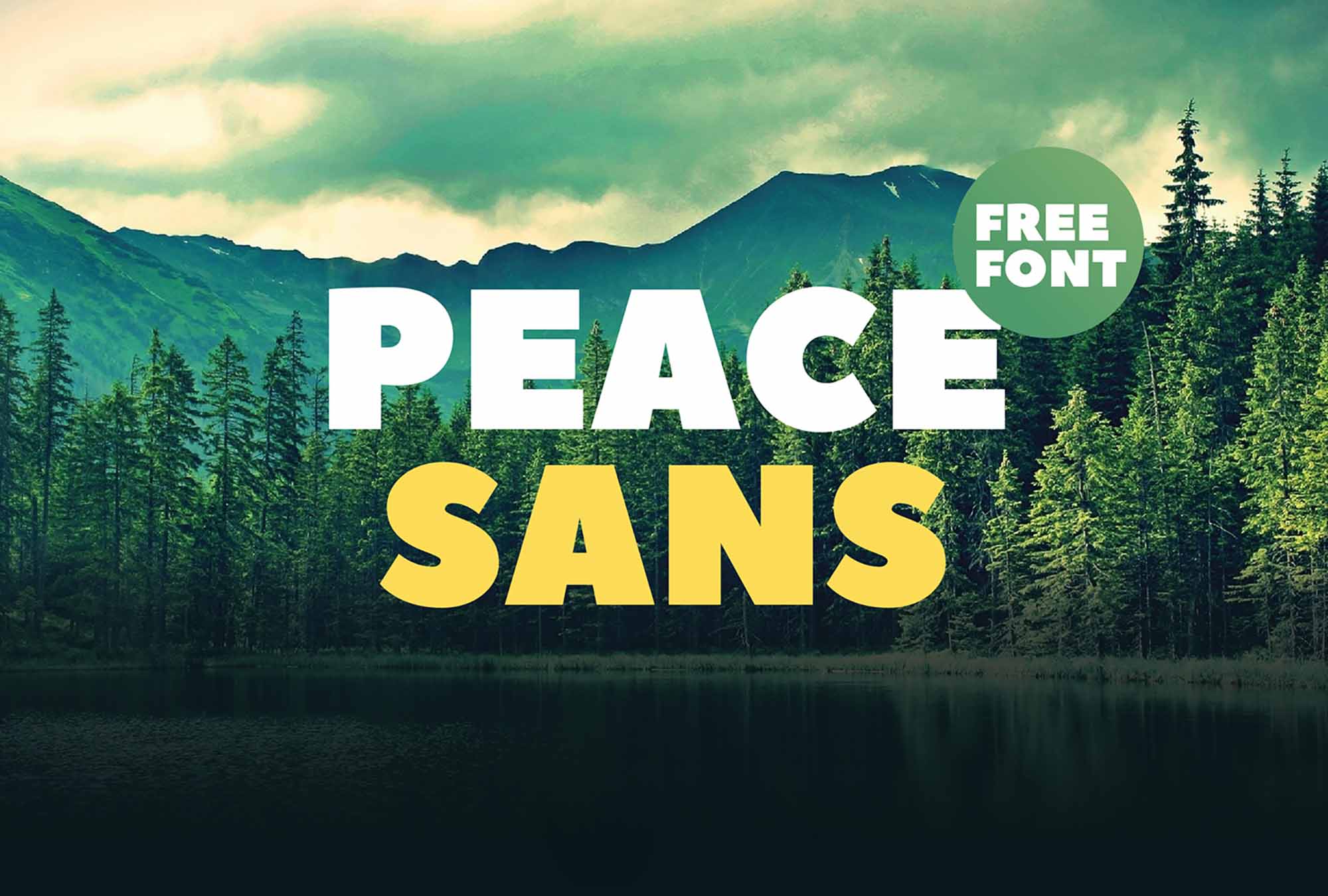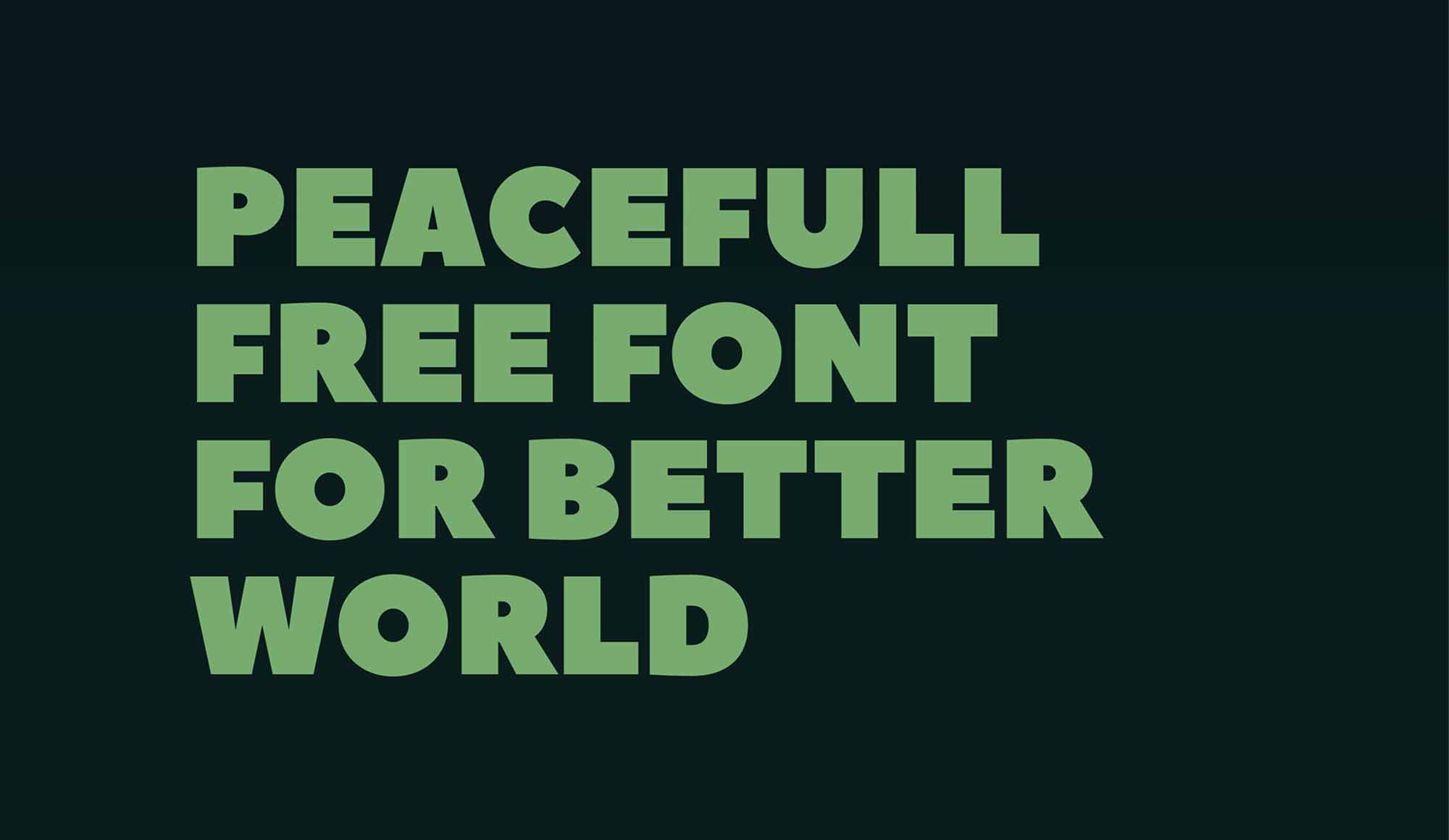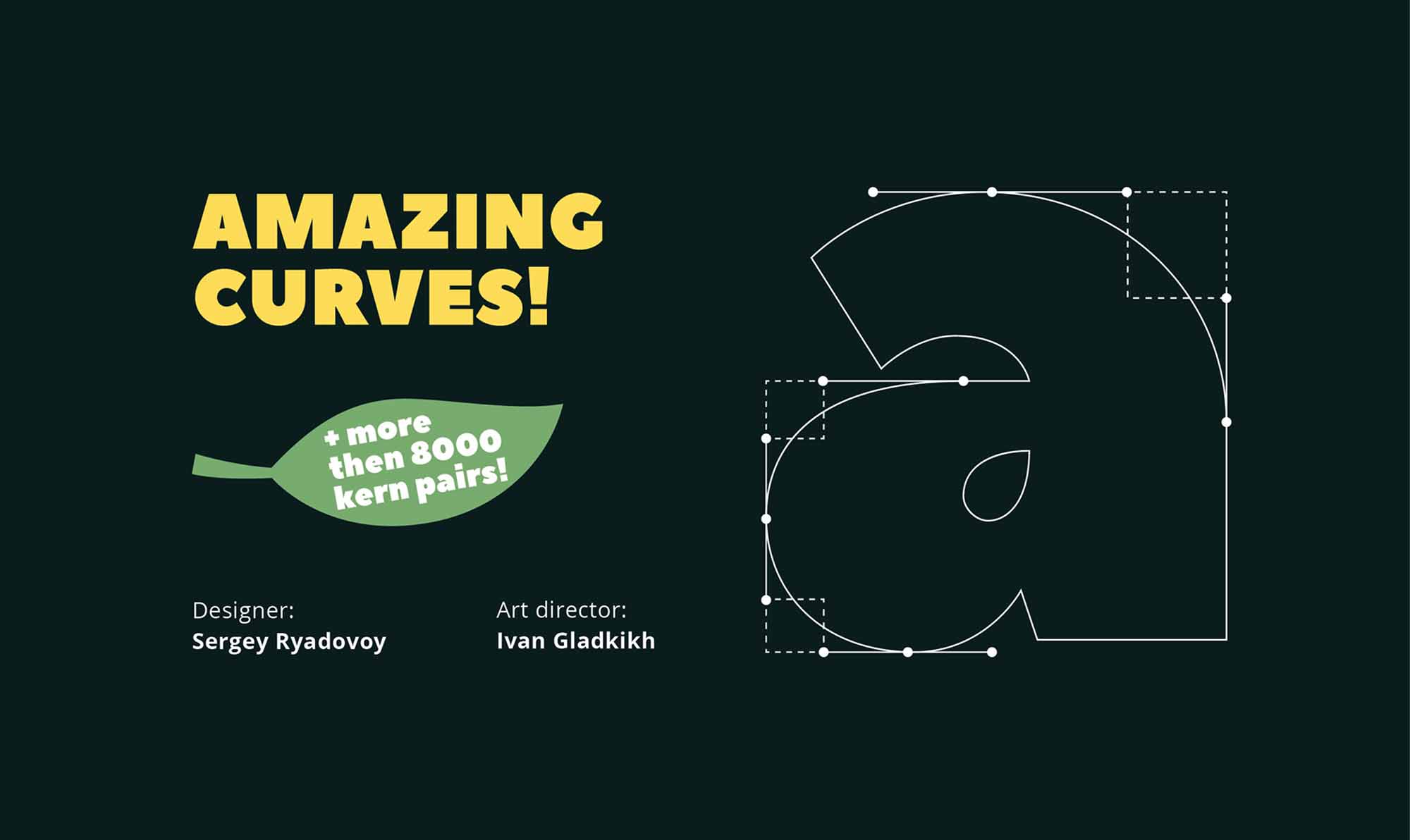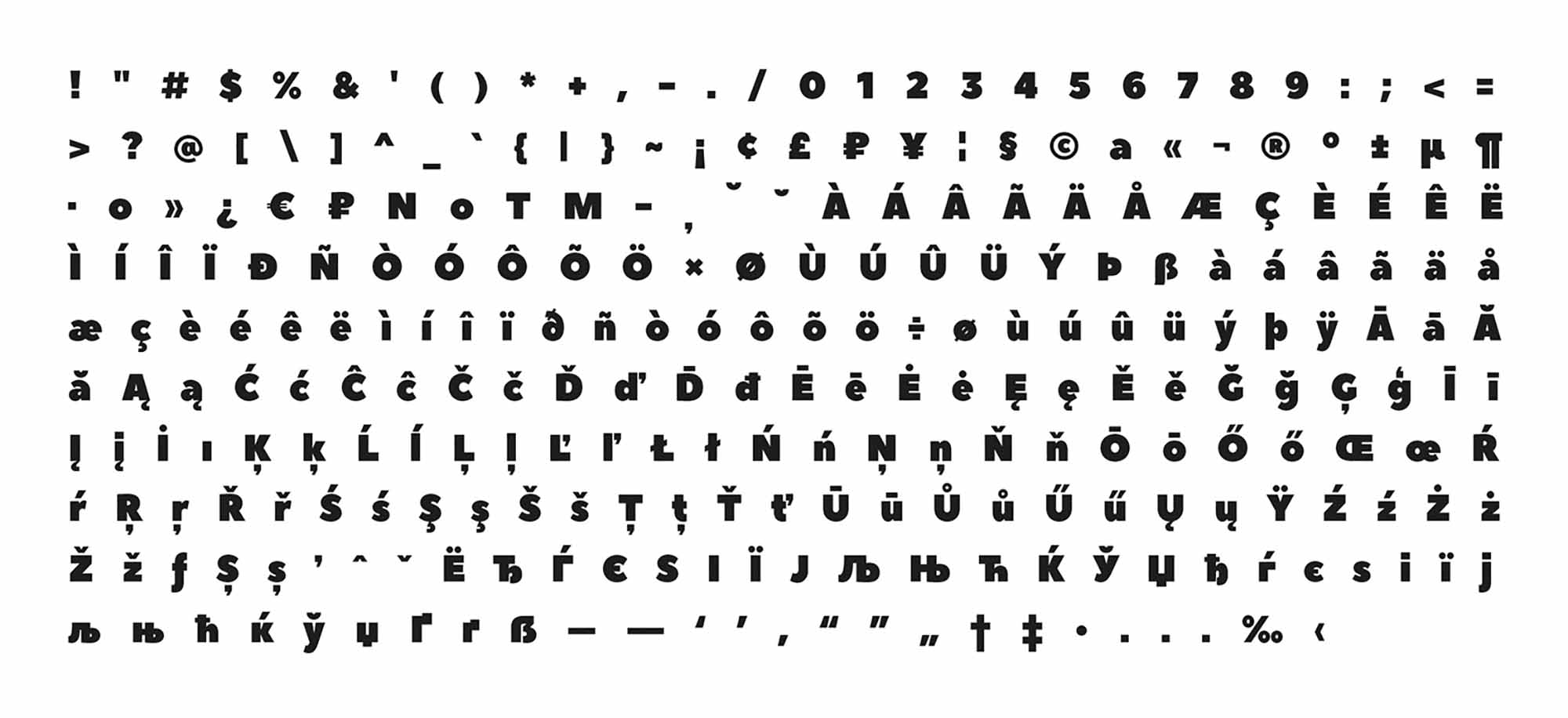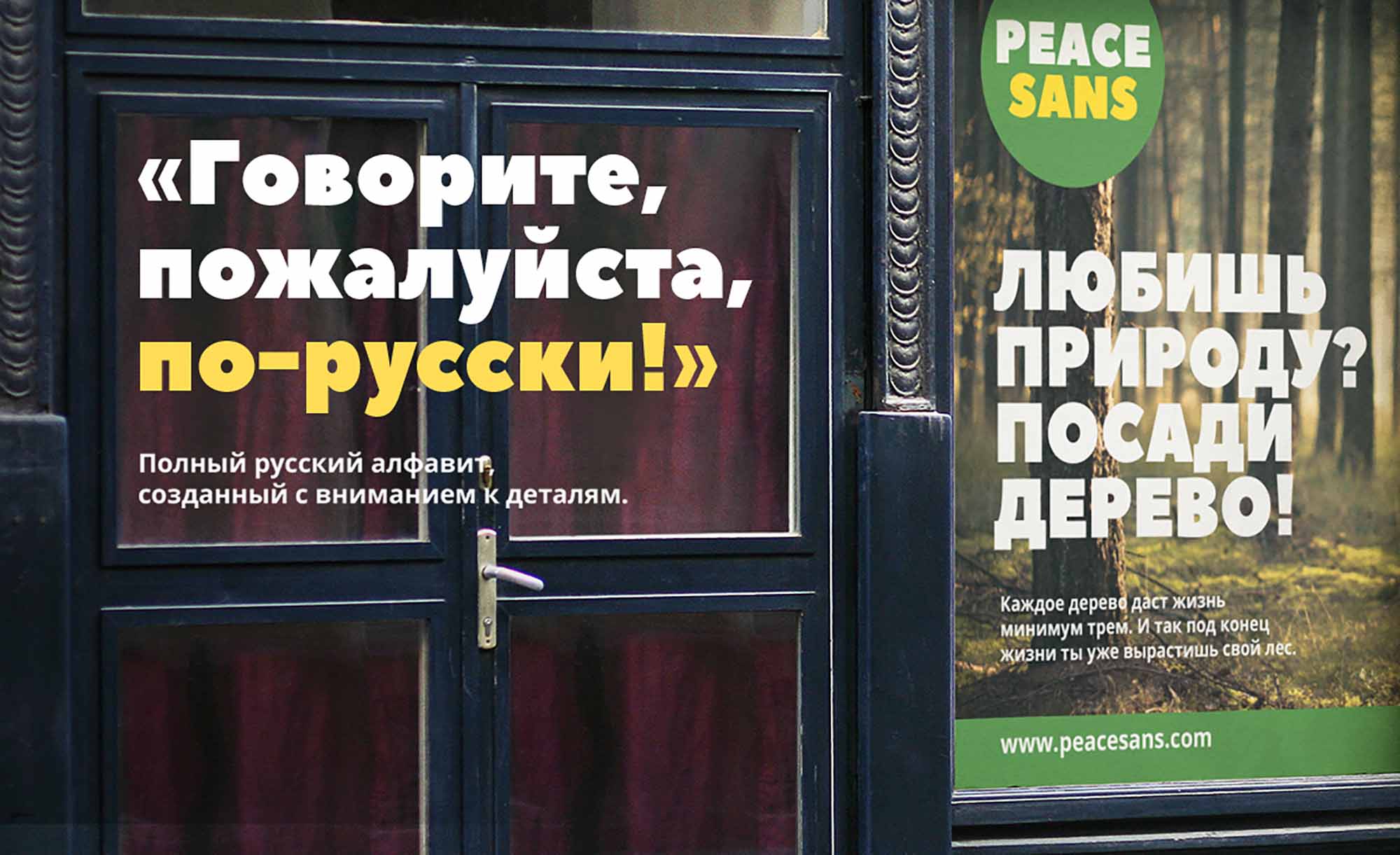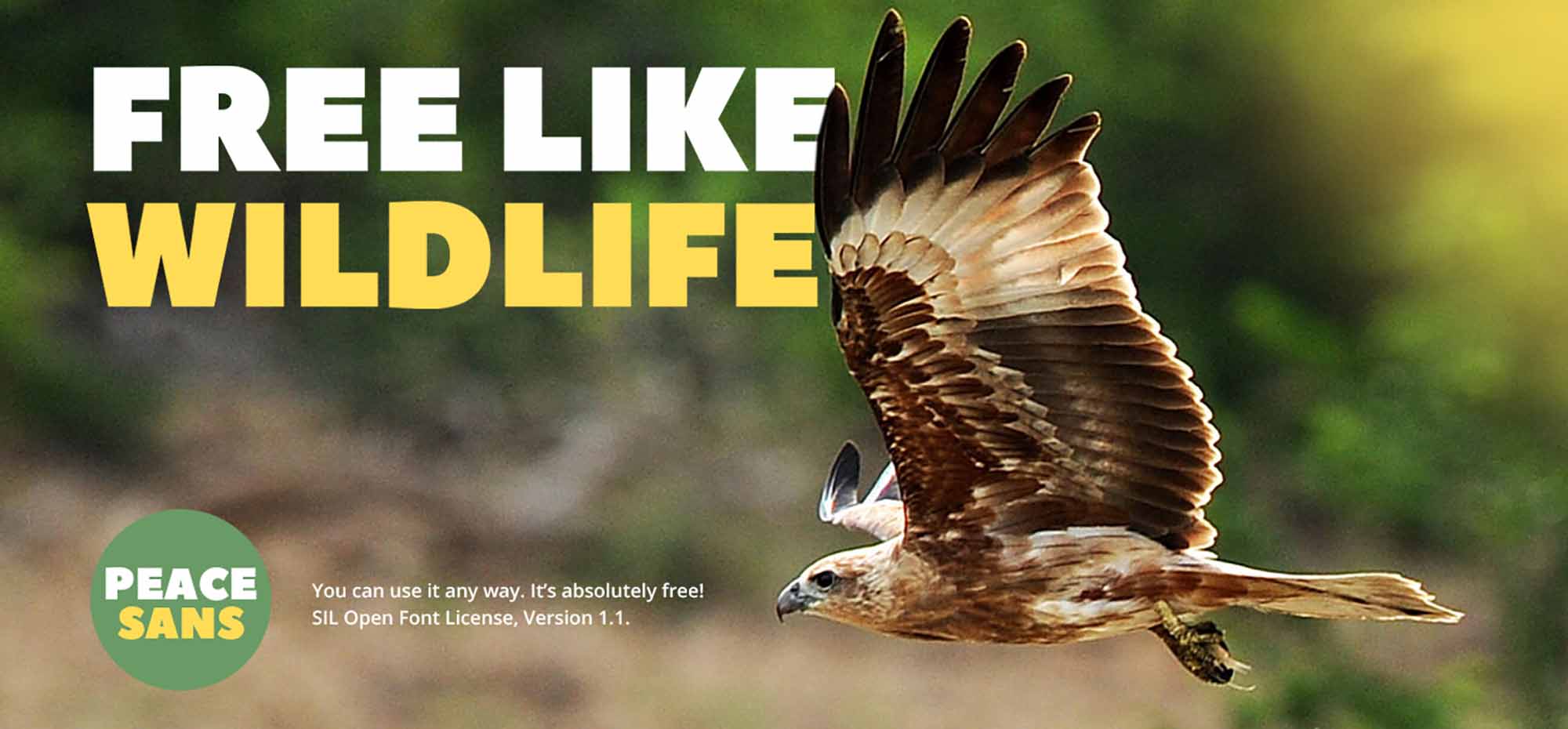
Peace Sans Font
This is a unique stylish Peace Sans font. This font is perfect for adding a personal charm to your logos, branding, social media, advertisements, invitations, product designs, product packaging, etc. Have fun using it!